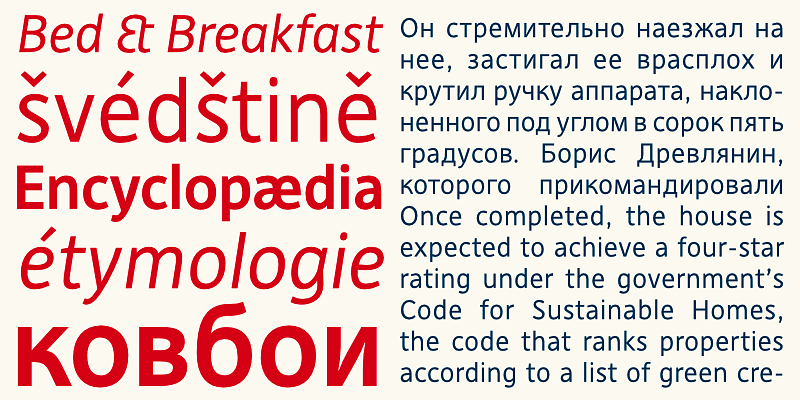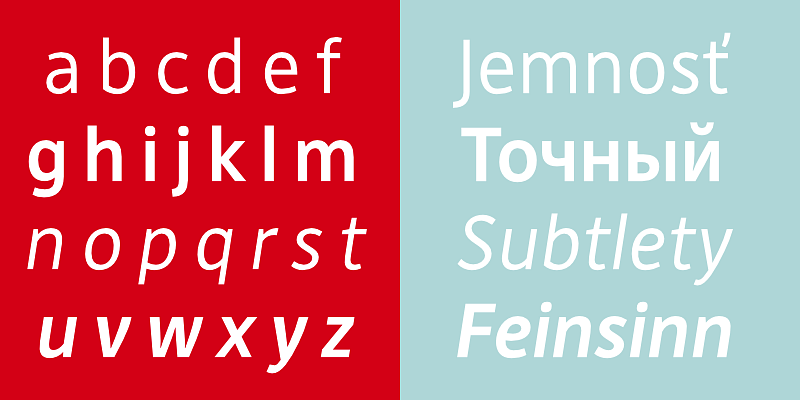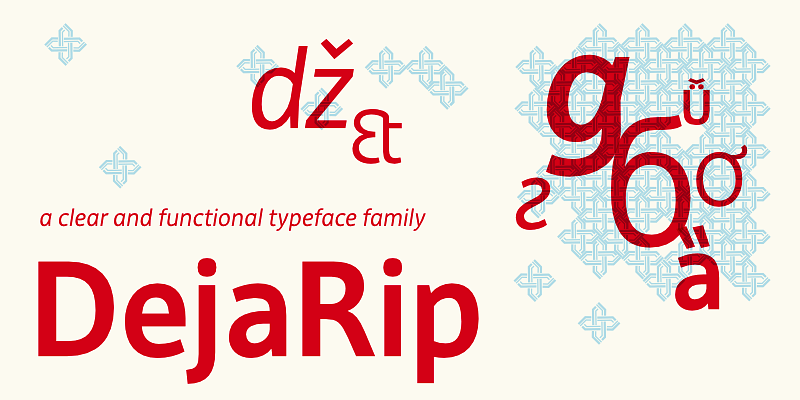
Originally designed for mobile phone interfaces, DejaRip is modest and inconspicuous thanks to its basic, natural shapes; yet it lends a remarkable sense of clarity and accuracy to the overall design.
The typeface library ranges from Dolce, an award winning spirited script face, to DejaRip, a functional sans-serif designed for electronic devices and web design, to Acuta, a contemporary and robust all-purpose serif family.